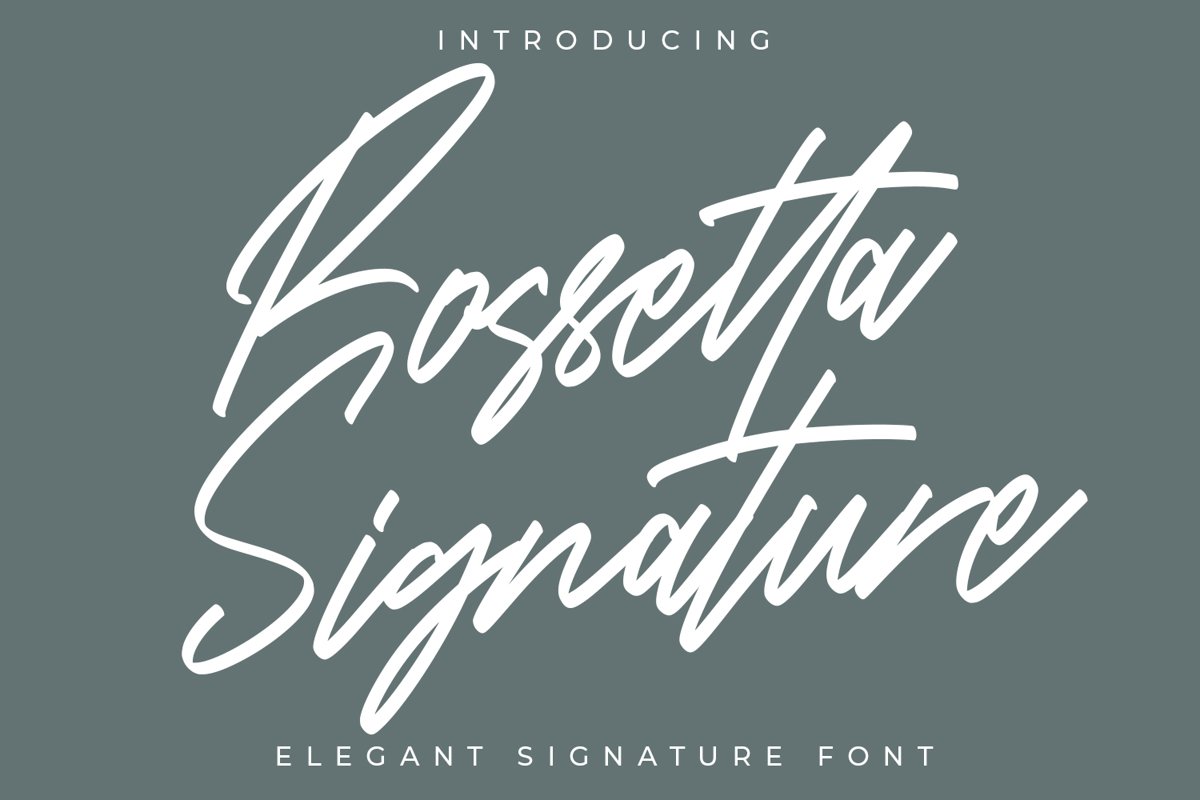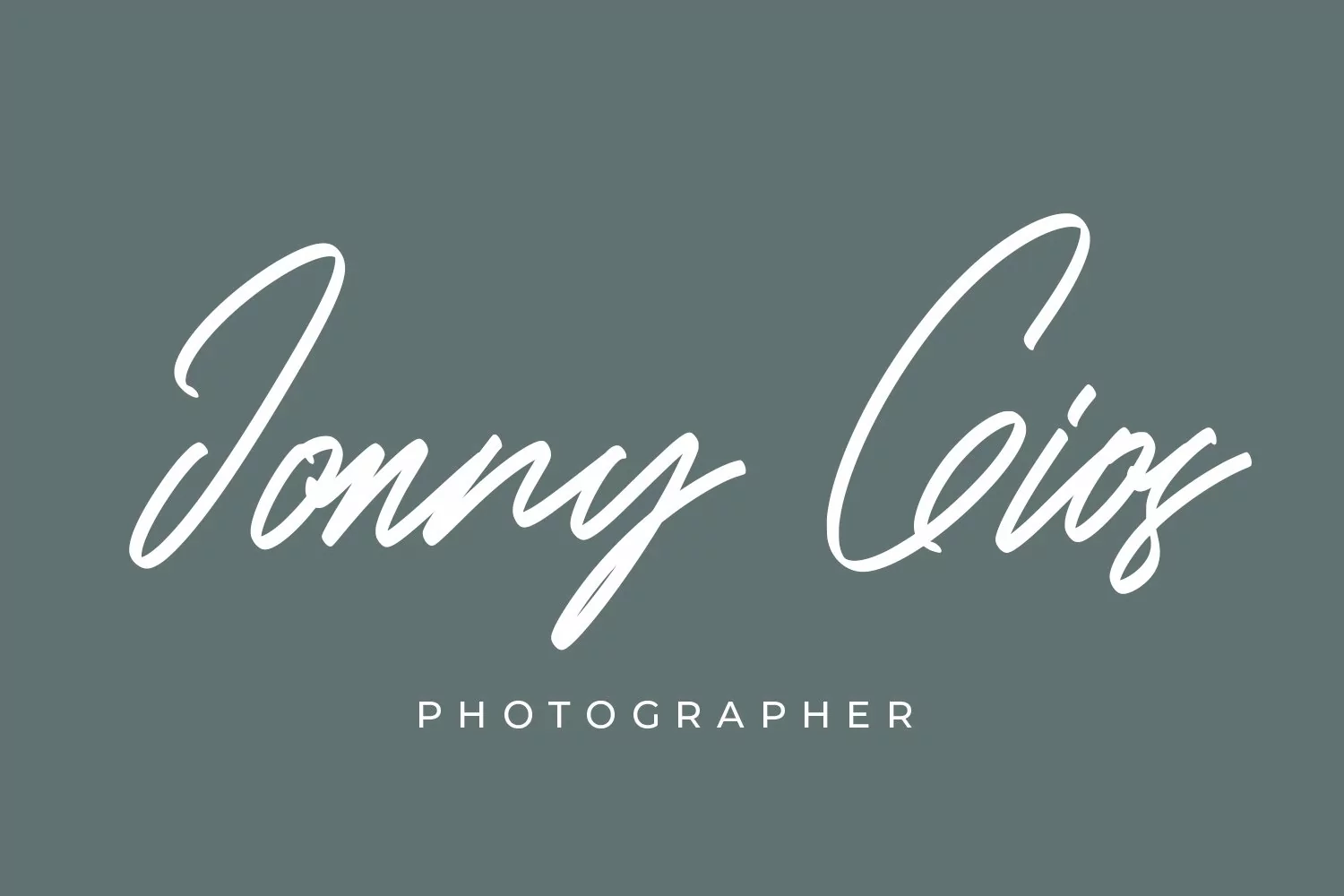
Rossetta - Signature Fonts that contain lowercase, uppercase, symbol, and also support multi language. There’s a lot ligatures in this font. This Font also comes with ligatures, alternates and many more. this font suitable for fashion, branding, catalog and other design what you want.